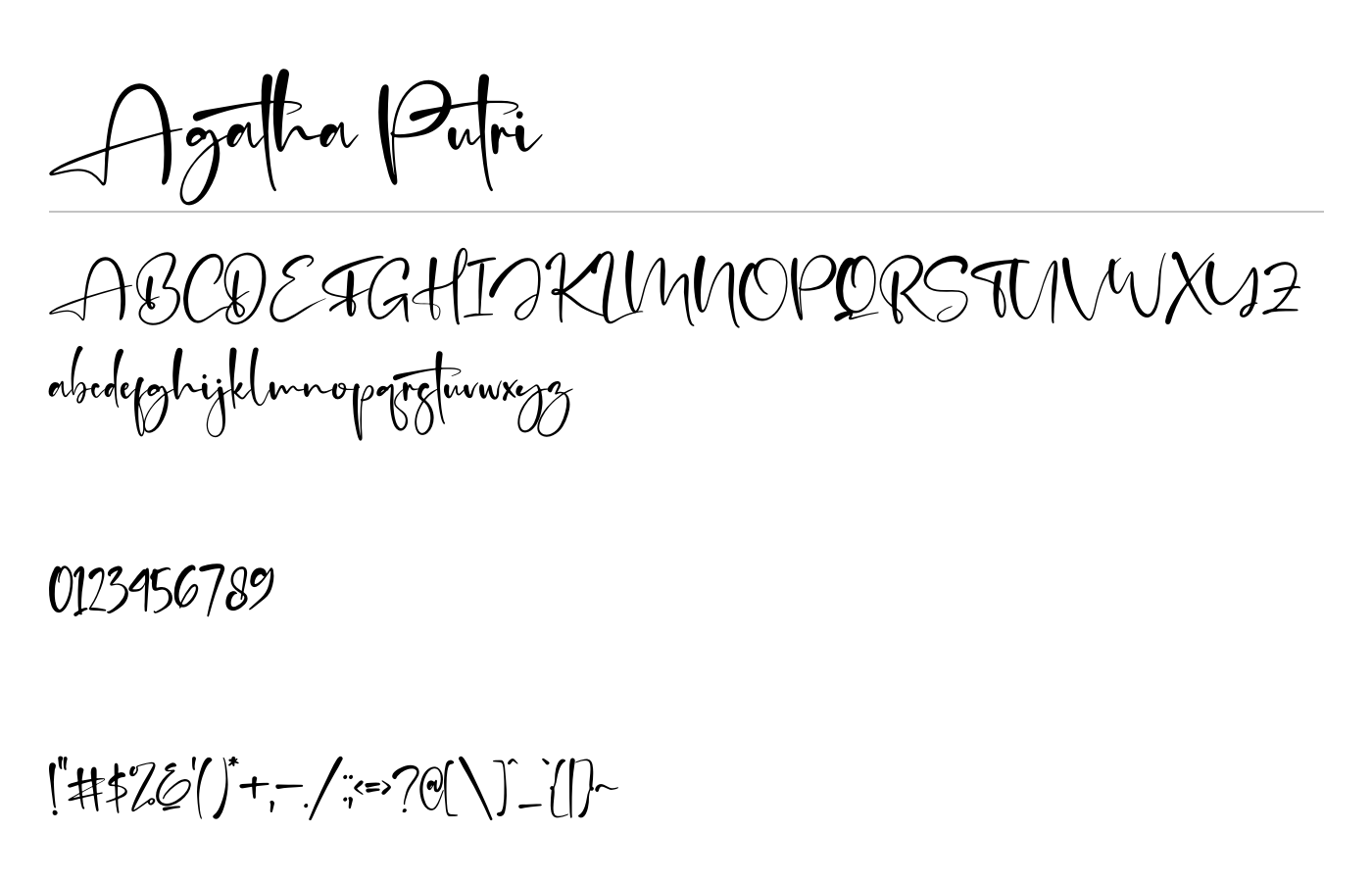
Agatha Putri is a lively and elegant handwritten script font with a playful yet sophisticated feel. Its varied stroke widths and flowing letterforms create a natural, personal touch, making it perfect for branding, invitations, and creative projects that want to convey warmth and personality. This font works best in headings or logos where its artistic style can stand out and add charm.
Agatha Putri Font
About Agatha Putri Font